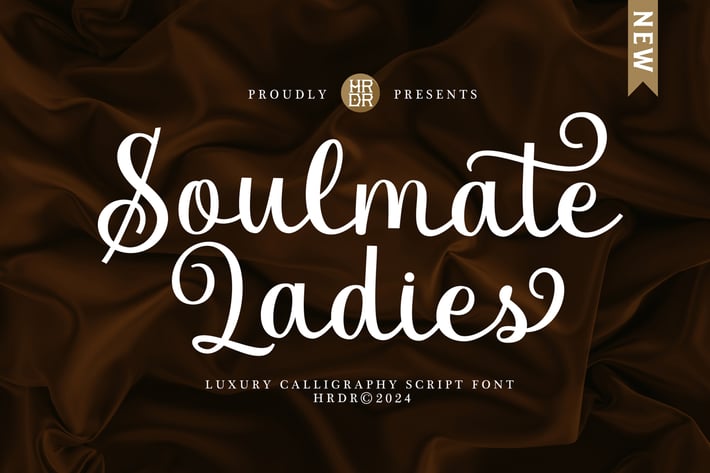
Soulmate Ladies - Luxury Calligraphy Script Font
Soulmate Ladies Font is a Luxurious Calligraphy Script Font.
It's perfect for branding, wedding invitations, photography, Neon Sign, bloggers, logos, greeting cards, Logo, Quotes, posters
and more.
Font Features :
- numeric & Multilingual support
- Stylistic Alternates with (Ss01, Ss02, and Ligatures)